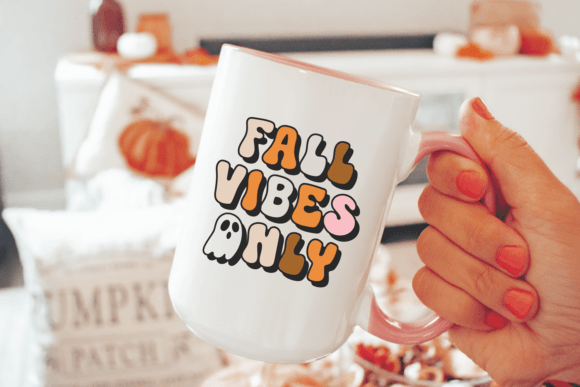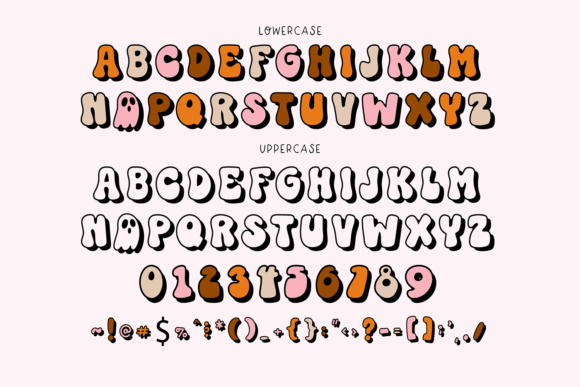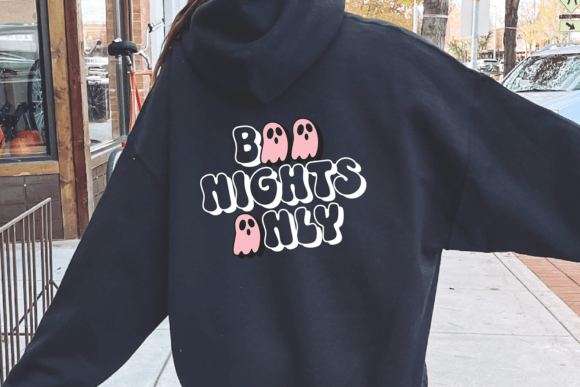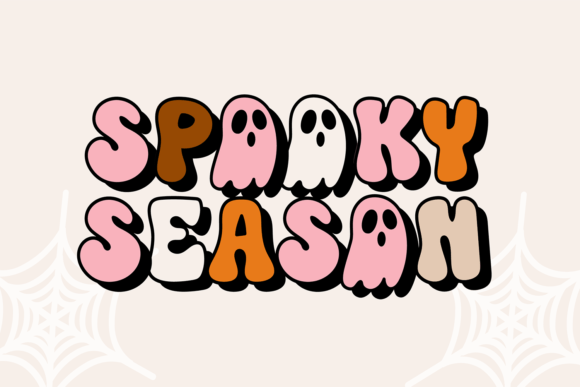
Introducing Ghost Magic Color Font: The Ultimate Choice for Playful Designs
Are you a designer, crafter, or educator looking for a font that embodies playfulness and authenticity? Look no further than Ghost Magic Color Font! This adorable display font is specifically designed to bring a touch of whimsy and fun to any project, making it perfect for children’s activities, school projects, and more.
What Makes Ghost Magic Color Font So Special?
Ghost Magic Color Font is a chunky lettered font that is sure to make your designs come alive! Its cute and colorful aesthetic is sure to capture the attention of your audience, whether you’re creating materials for kids or simply want to add a playful touch to your designs. With Ghost Magic Color Font, you can add a dash of personality to your projects and make them stand out from the crowd.
Perfect for Children’s Activities and School Projects
As a designer or educator, you know how important it is to create engaging and interactive materials for kids. Ghost Magic Color Font is the perfect choice for any children’s activity or school project, including:
- Coloring pages and worksheets
- Activity sheets and puzzles
- Invitations and party decorations
- Educational materials and worksheets
With Ghost Magic Color Font, you can create materials that are both fun and educational, helping kids to learn and grow while having a blast.
Why Designers and Crafters Love Ghost Magic Color Font
Ghost Magic Color Font is not just limited to educational materials – it’s also perfect for designers and crafters who want to add a playful touch to their projects. Whether you’re creating:
- Blog headers and titles
- Digital papers and scrapbooking pages
- Signs and display materials
Ghost Magic Color Font is the perfect choice for anyone who wants to add a dash of personality and whimsy to their designs.
Tips for Using Ghost Magic Color Font
To get the most out of Ghost Magic Color Font, here are a few tips to keep in mind:
- Use it for headlines and titles to add a pop of color and personality
- Pair it with other fonts to create a unique and playful combination
- Use it to create engaging and interactive materials for kids
Ghost Magic Color Font is a versatile and playful display font that is perfect for designers, crafters, and educators who want to add a touch of whimsy and fun to their projects. With its cute and colorful aesthetic, chunky lettering, and endless possibilities for creative expression, Ghost Magic Color Font is sure to become a favorite in your font collection. So why wait? Download Ghost Magic Color Font today and start creating playful and engaging materials that will delight kids and adults alike!
Key Features of Ghost Magic Color Font
- Cute and colorful display font
- Chunky lettered design
- Perfect for children’s activities and school projects
- Suitable for designers, crafters, and educators
- Easy to use and pair with other fonts
Whether you’re a seasoned designer or just starting out, Ghost Magic Color Font is a great addition to your font library. So why not give it a try and see how it can bring your designs to life?